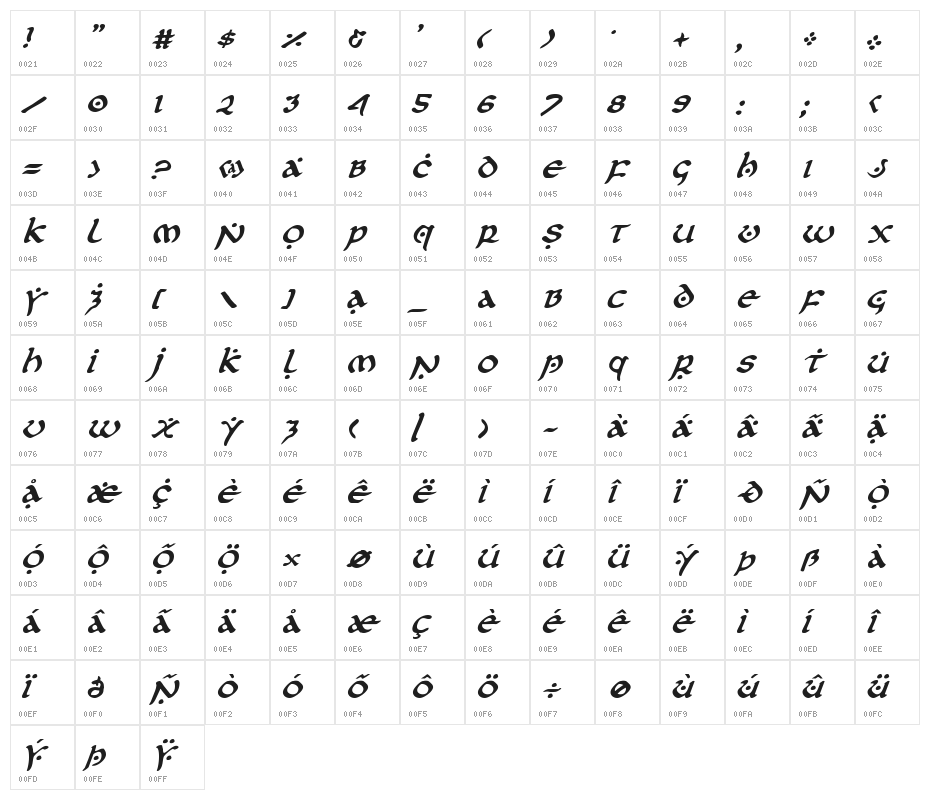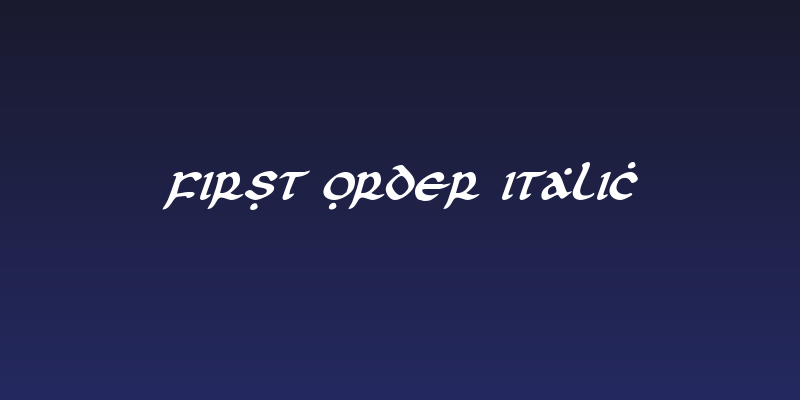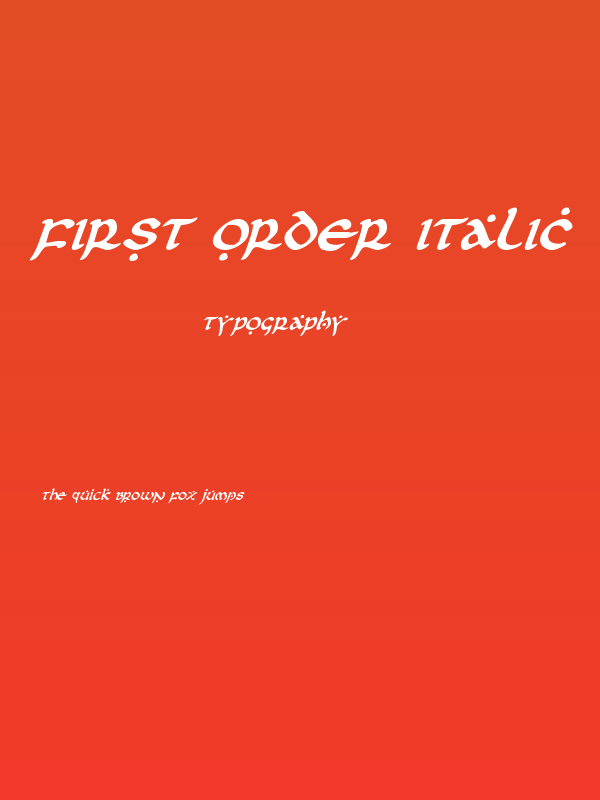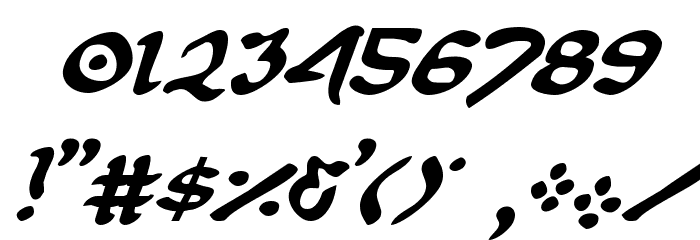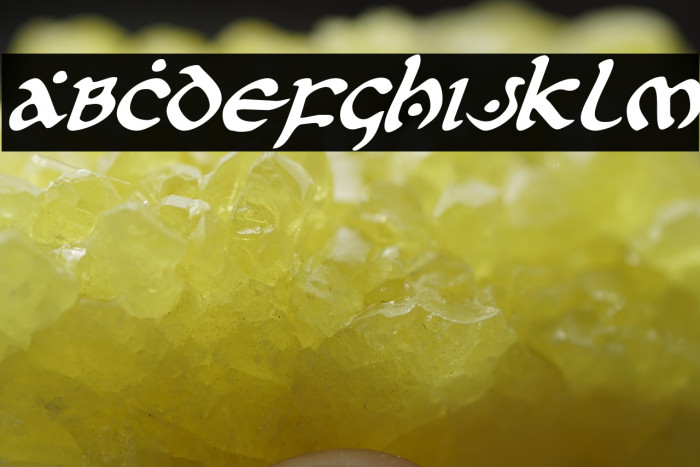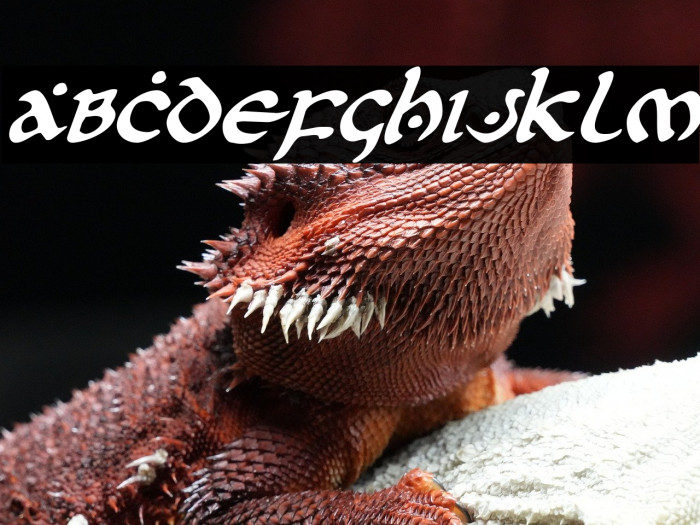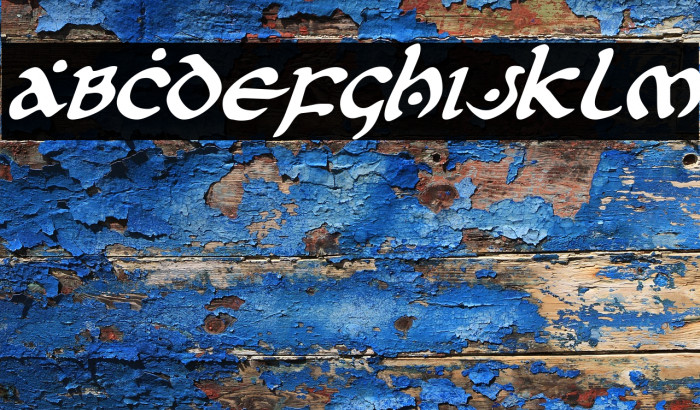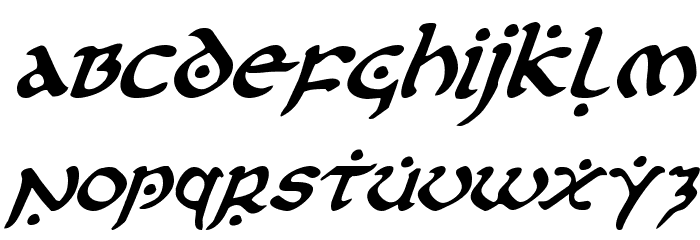
First Order Italic Font
First Order Italic Description
This font features a dynamic and flowing italic style with a distinct calligraphic influence. The characters exhibit a bold and expressive form, with smooth curves and sharp edges that create a sense of movement and elegance. The uppercase and lowercase letters maintain a consistent style, with a slight slant that enhances the italic effect. Numbers and special characters are designed with the same attention to detail, ensuring a cohesive look across all elements. The font's unique style makes it suitable for creative and artistic projects where a touch of sophistication is desired.
| Use Case | Logos, Headlines, Artistic designs |
| Proposed Projects | Ideal for invitations, branding, logos, and artistic designs requiring an elegant touch. |